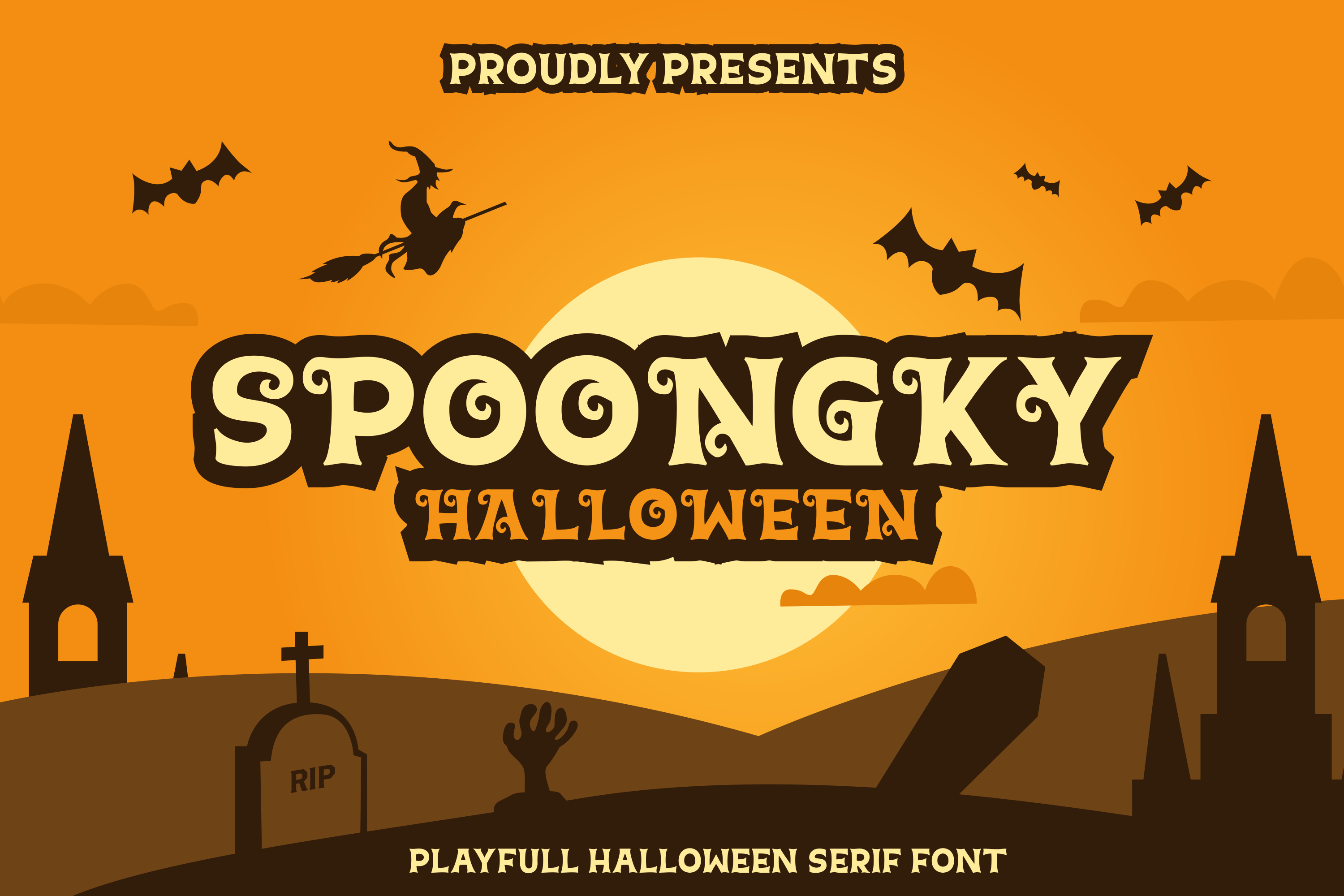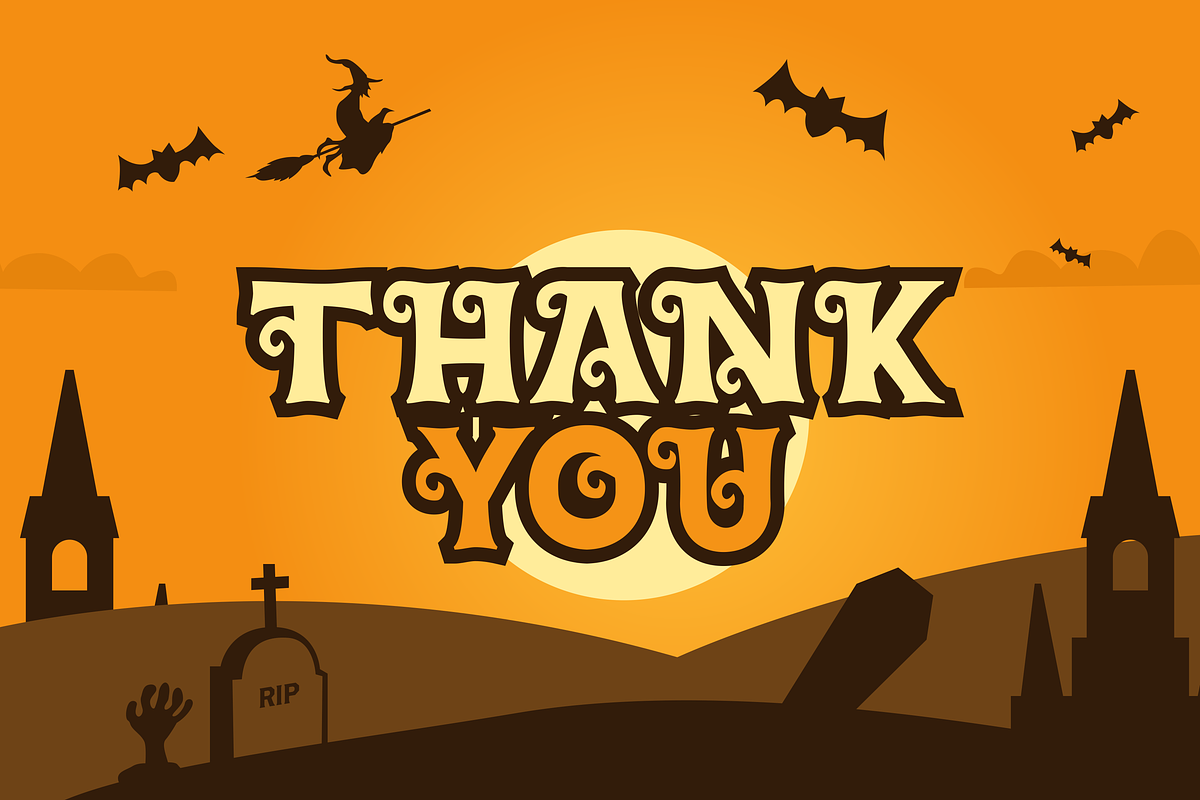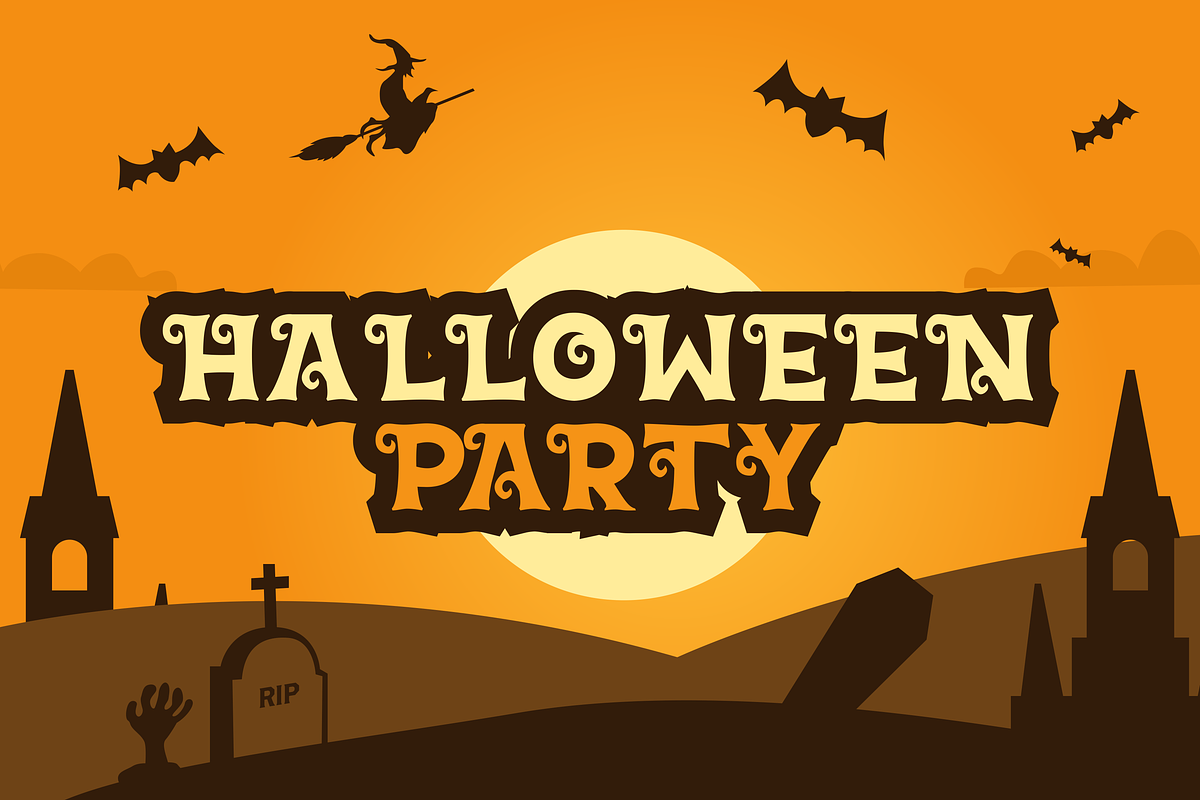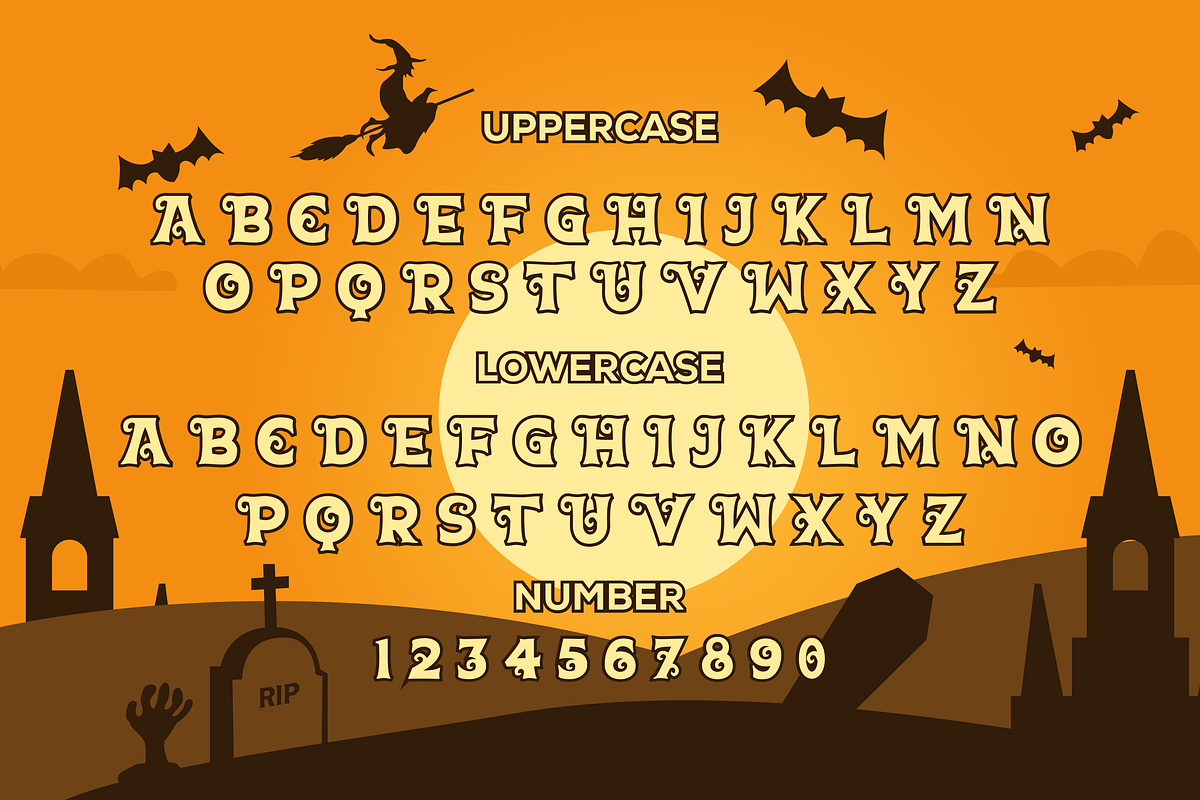
Spoongky Horror Font
Introducing of our new product the name is Spoongky a Horror Font, Spoongky inspired by Bouncy horror style with a fun theme very good for horror, scary, spooky and halloween theme design.